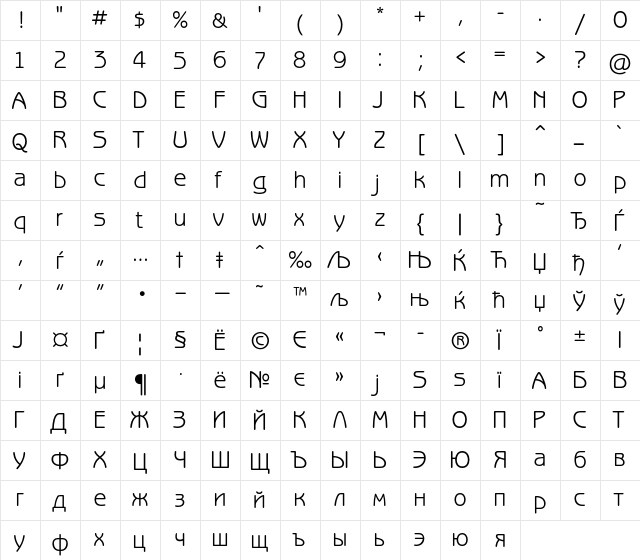
BenguiatGothicC Regular Font Preview
BenguiatGothicC Regular
Design Context for BenguiatGothicC Typeface
BenguiatGothicC has the quiet confidence of well-executed sans-serif typography: versatile, unobtrusive, and dependable at any size.
Font Pairing: Works well alongside a characterful serif or display font that can carry the expressive load while BenguiatGothicC handles the functional copy.
Pro Tip: Use BenguiatGothicC for UI labels, navigation, and short-form body copy where clean legibility is the priority.